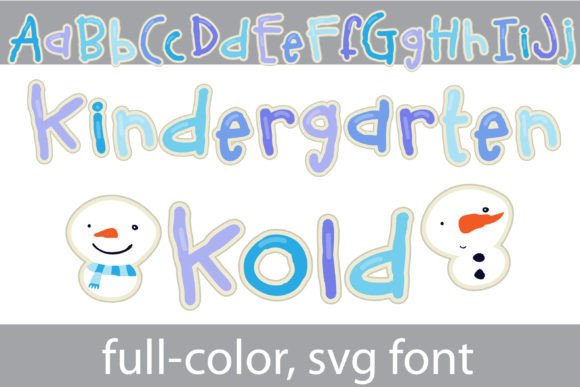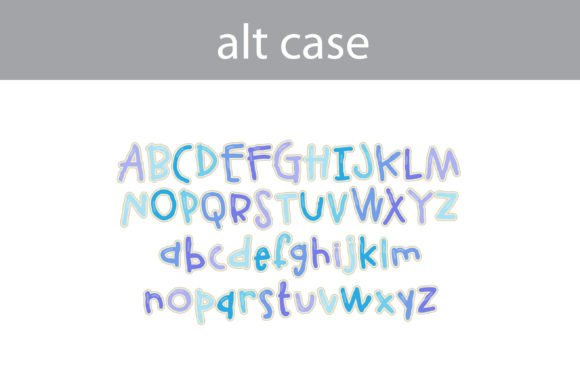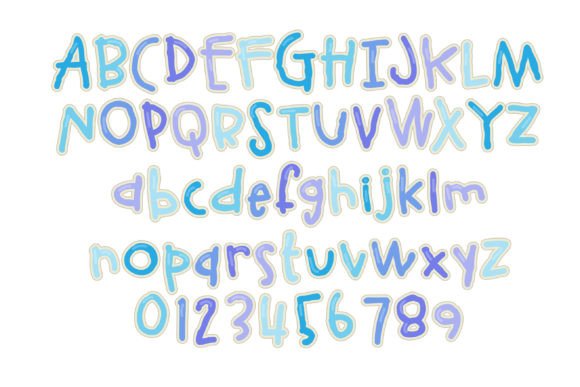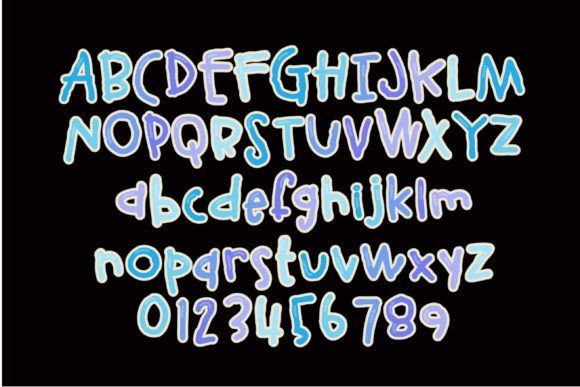
Kindergarten Kold Font
About the Kindergarten Kold Font
Let us introduce you to Kindergarten Kold Font, where timeless design meets modern craftsmanship. This full-color font is a youthful, hand-crafted font in a winter color palette. Check out the bonus winter glyphs in place of the triangle brackets. There is an alt case with additional colors you can access through your system or Silhouette’s glyph map.